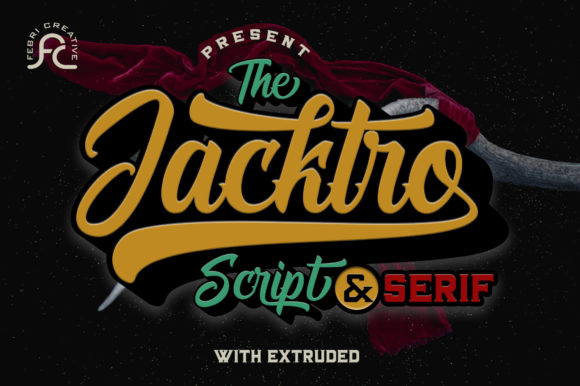
Introducing Jacktro Font - A Dazzling Kaleidoscope of Creativity Awaits!
Step into the realm of Jacktro Font, where elegance and uniqueness intertwine to create a captivating spectacle. This modern and cool handwritten font, meticulously crafted by the visionary Febri Creative, promises to infuse your designs with a touch of class.
Unleash your imagination and let the magic of Jacktro Font transport you to a world of limitless possibilities. Its contemporary style and distinct personality are guaranteed to leave a lasting impression on your audience.
With Jacktro Font, you'll have the power to transform your creative endeavors into breathtaking masterpieces. Impress your clients, enthrall your readers, and share your captivating stories with the world.